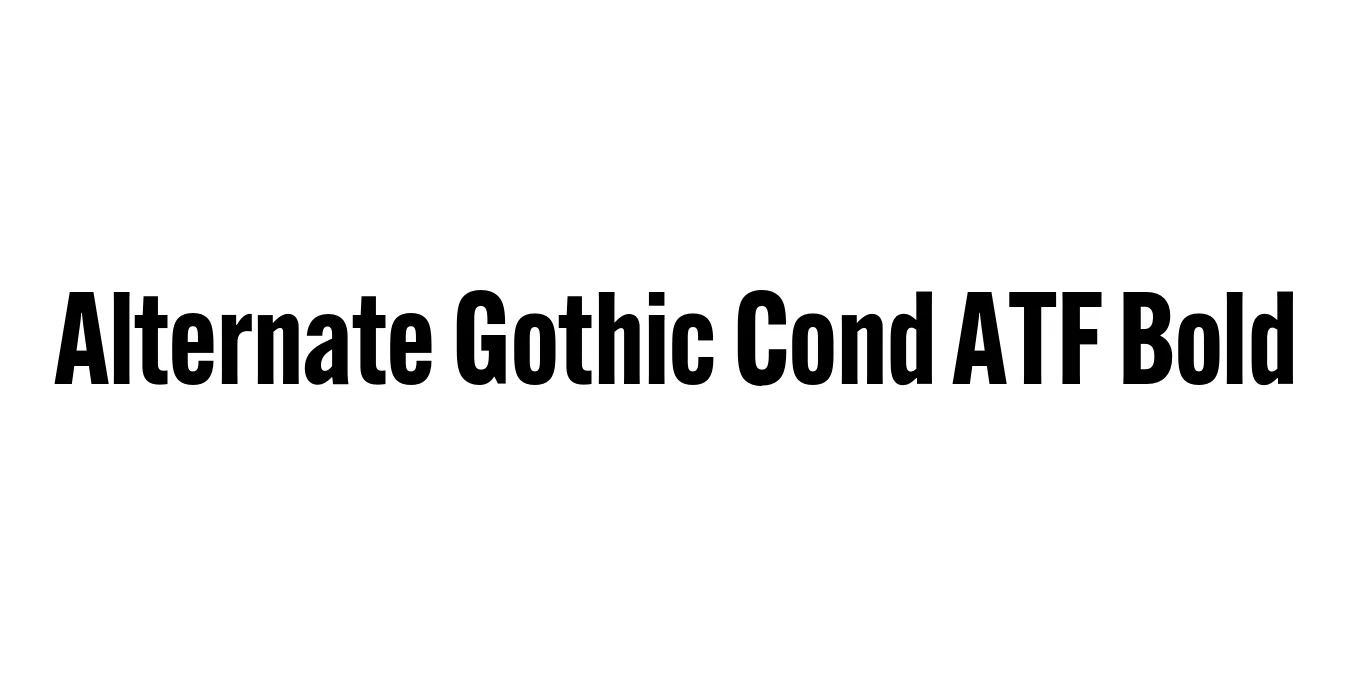
Alternate Gothic Cond ATF Bold
Designed by Morris Fuller Benton
Alternate Gothic Cond ATF Bold is a powerful revival of the original sans-serif typeface designed by Morris Fuller Benton in 1903 for the American Type Founders (ATF). Originally created to provide a robust, space-saving solution for advertising and editorial headlines, it was designed as a condensed relative to the Franklin Gothic family. This specific digital version captures the industrial strength and clean lines of the original metal type, characterized by its vertical stress and high-impact visual weight.
Historically, the Alternate Gothic series was released in three different widths to allow typesetters maximum flexibility in narrow columns. The Bold Condensed weight is particularly noted for its authoritative presence and clarity at large sizes. It remains a timeless choice for graphic designers seeking an aesthetic that balances vintage American craftsmanship with modern minimalist utility, making it a staple for high-contrast typographic compositions.
Alternate Gothic Cond ATF Bold Best Uses
High-impact headlines and subheads in magazine layouts.
Vertical compositions requiring bold, space-efficient typography.
Creating strong, authoritative logos for industrial or classic brands.
Eye-catching hero sections and prominent call-to-action buttons.